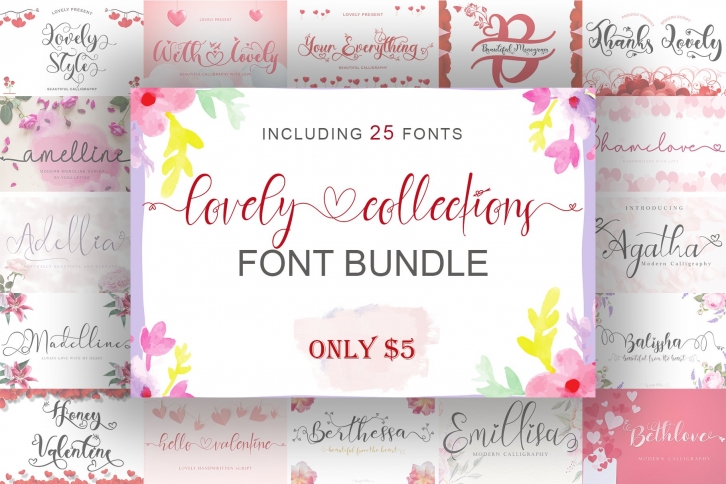
Lovely Collections Bundle is a trendy and unique font with an authentic style. It was designed by yogaletter6 and it's a great choice for creative people who need such a font. It was released on July 26, 2022 and the file size is 9.38 MB. Lovely Collections Bundle will add an organic vibe to any design idea!